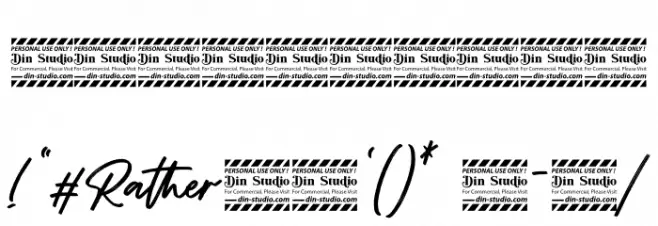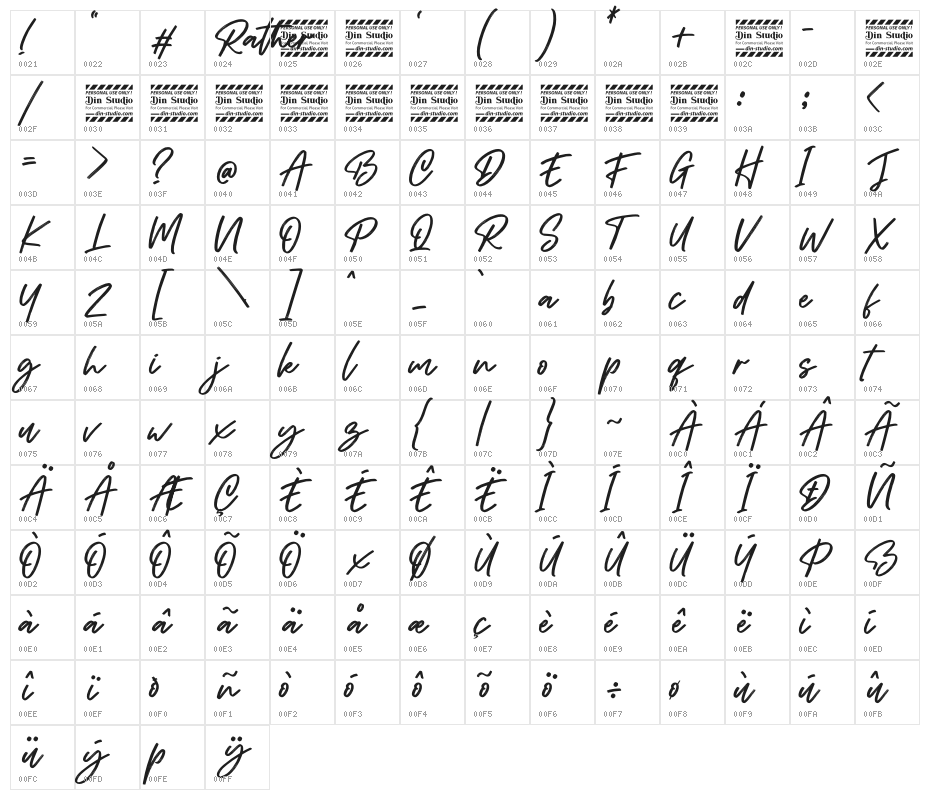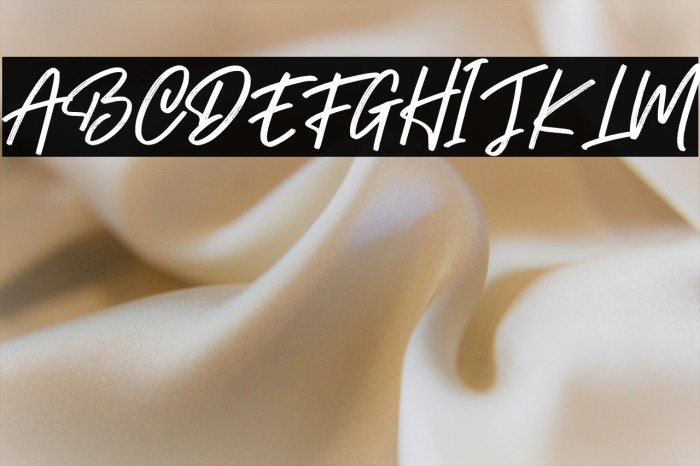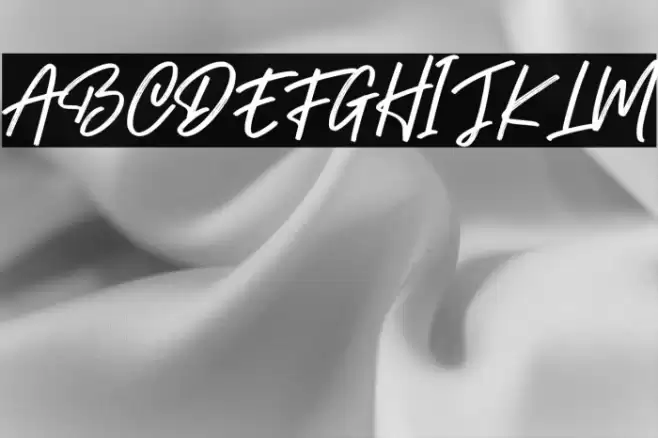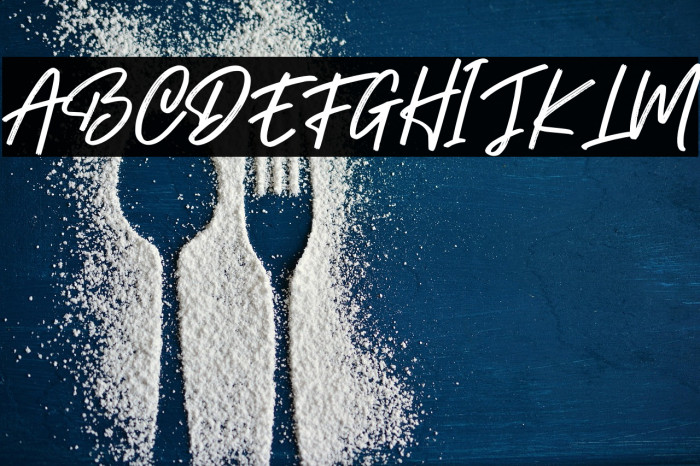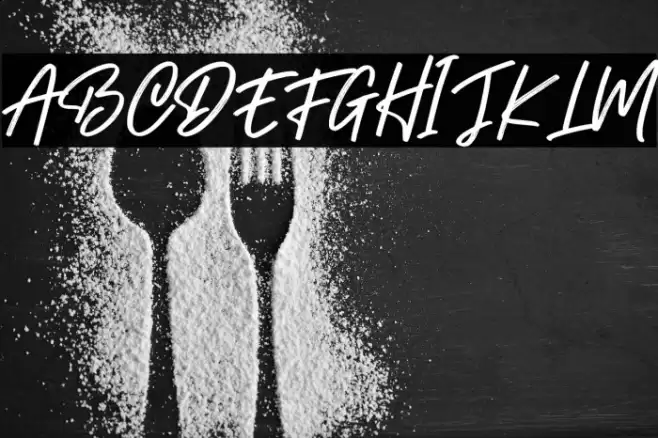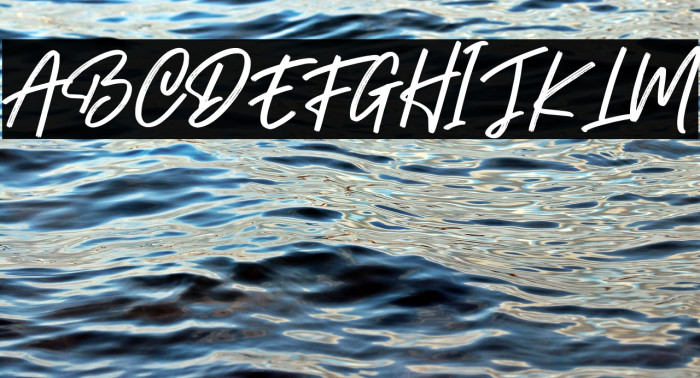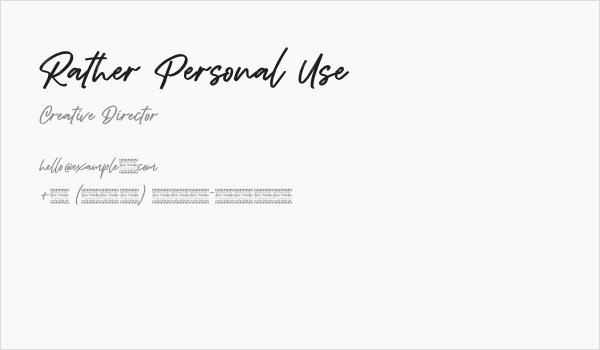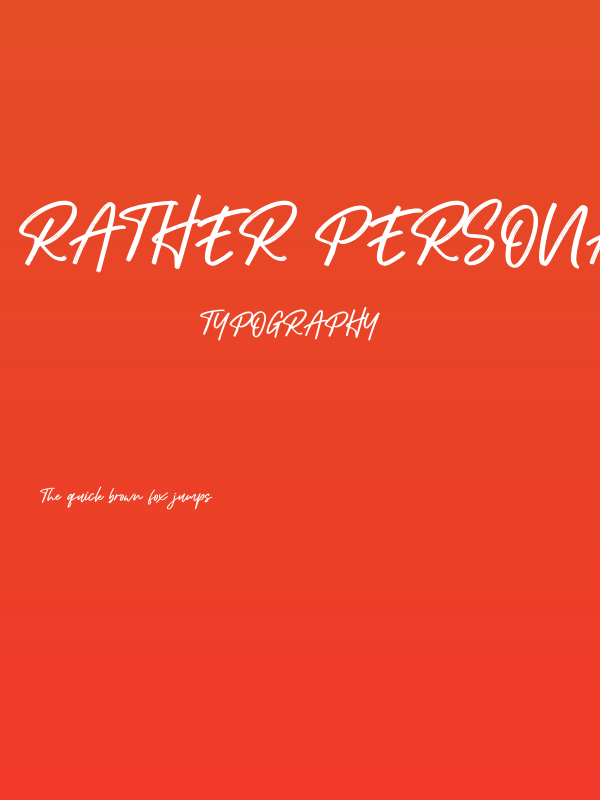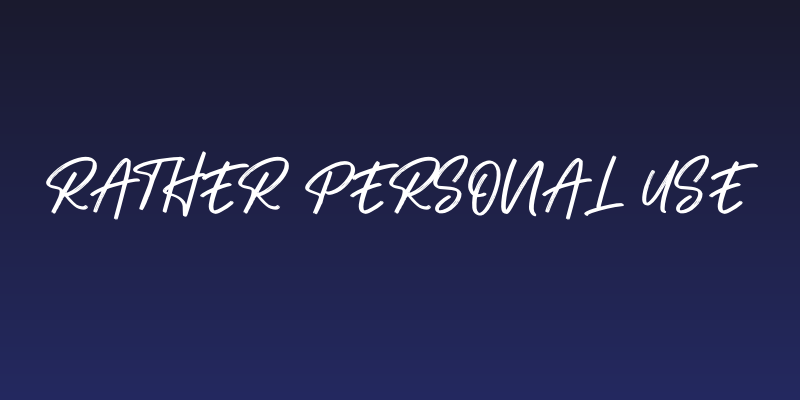
Rather Personal Use Font
Rather Personal Use Description
This font exhibits a dynamic and expressive handwritten style, characterized by fluid strokes and a natural, flowing appearance. The uppercase letters are bold and slightly slanted, giving a sense of movement and energy. The lowercase letters maintain a consistent style, with some letters featuring unique loops and curves that add personality. The font includes a variety of special characters, enhancing its versatility for creative projects. Its overall appearance is both modern and artistic, making it suitable for designs that require a personal touch.
| Proposed Projects | Ideal for personal branding, invitations, greeting cards, and artistic projects that require a personal and creative touch. |